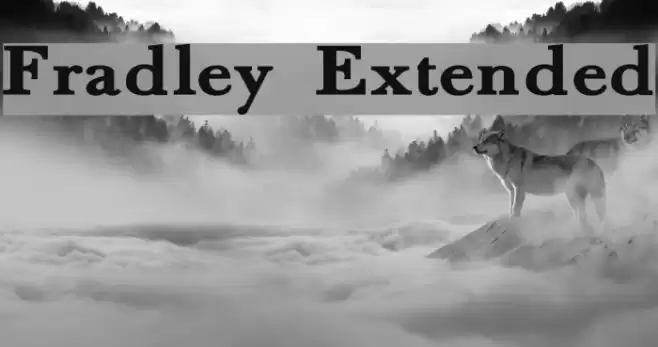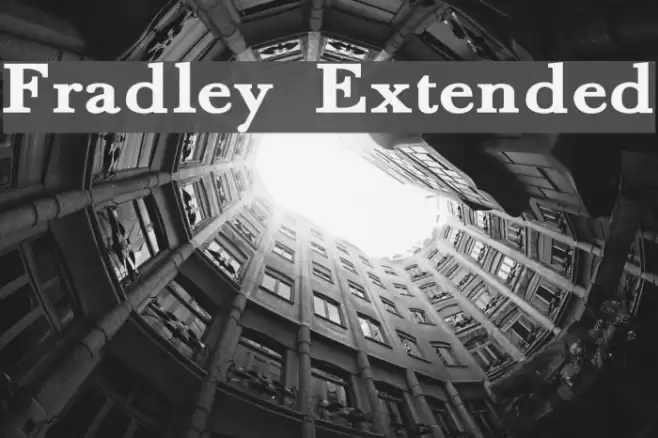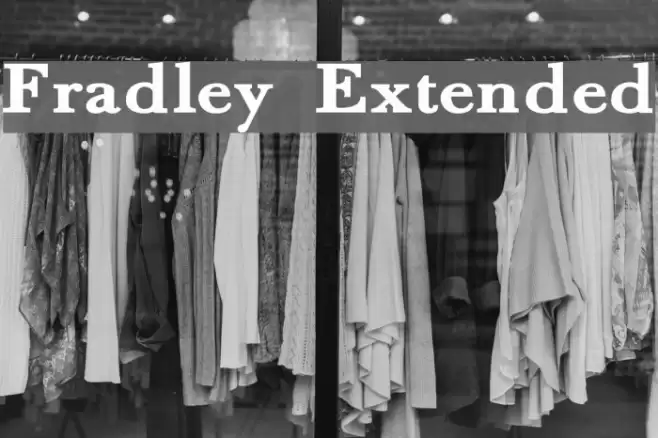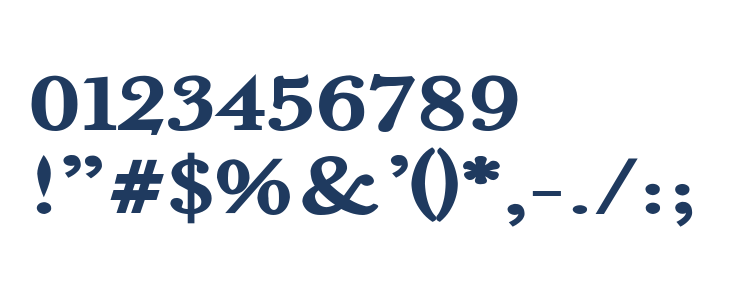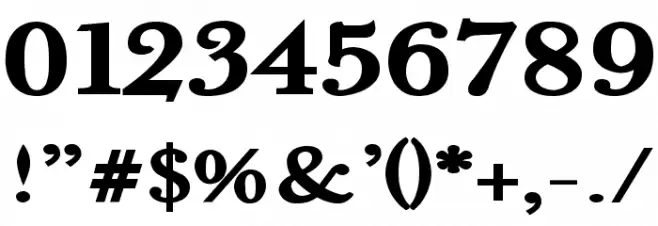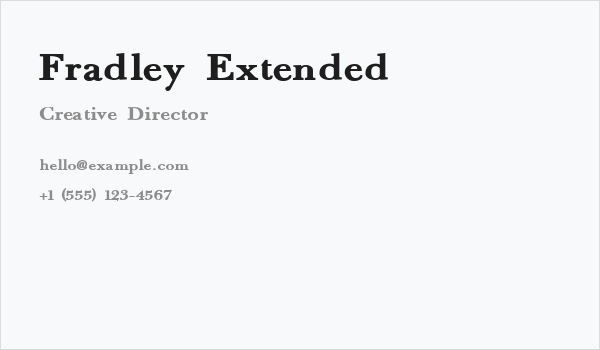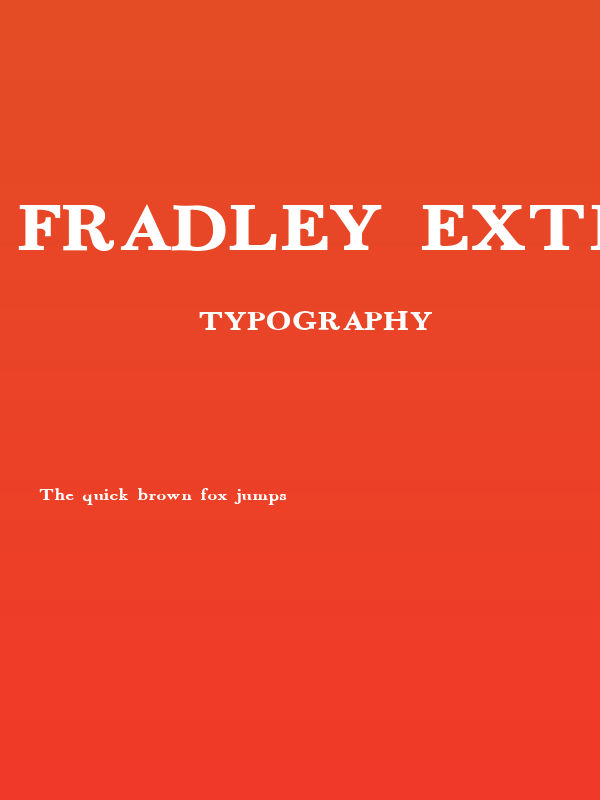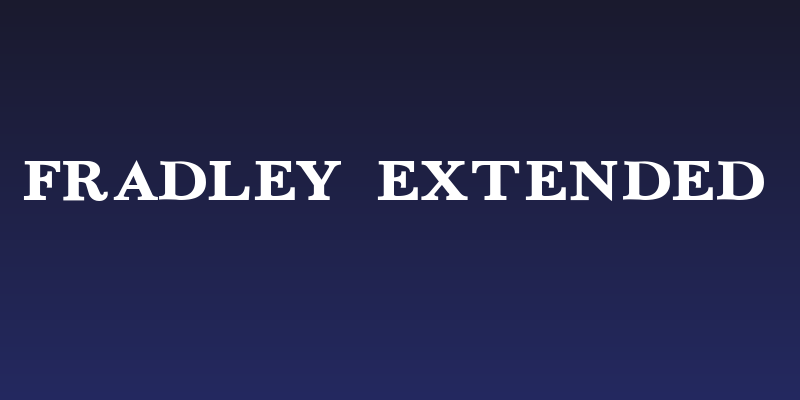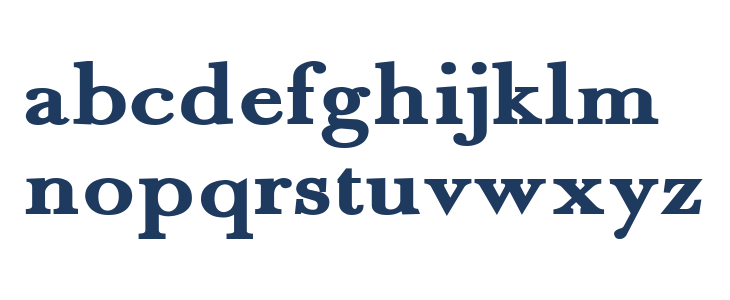
Fradley Extended Font
Fradley Extended Description
This font exhibits a classic serif style with pronounced, elegant serifs that give it a traditional and authoritative appearance. The uppercase letters are bold and commanding, while the lowercase letters maintain a balanced proportion, ensuring readability. The numerals are clear and distinct, making them suitable for various applications. Special characters are well-defined, adding versatility to the font. The overall design is reminiscent of classic typefaces, yet it maintains a modern touch through its clean lines and precise curves.
A classic serif font with bold, elegant serifs and a modern touch from Uncategorized fonts.
- Proposed Projects: Ideal for editorial design, book covers, formal invitations, and branding projects that require a touch of elegance and tradition.
- Width: Expanded
- Overall Style: Classic